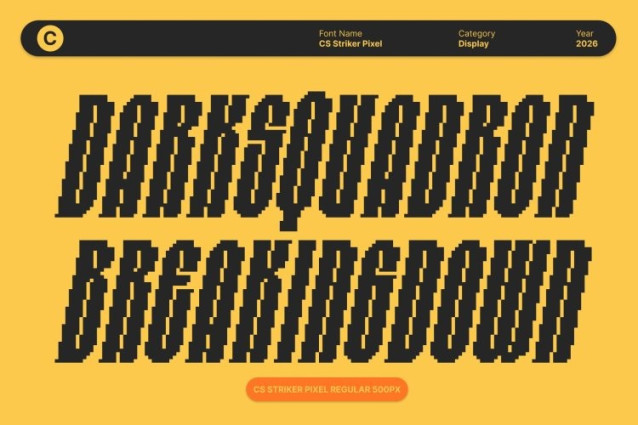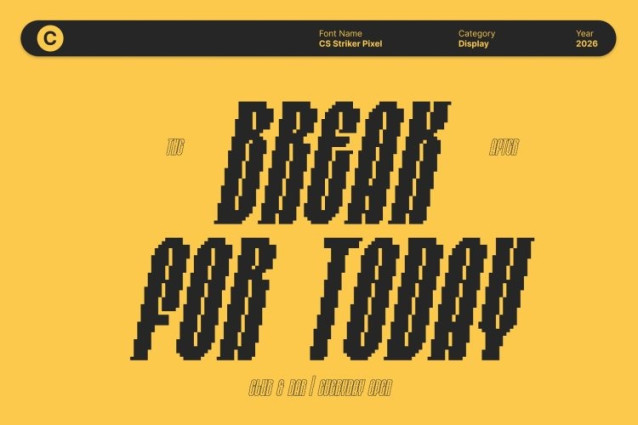
CS Striker Pixel Font
CS Striker Pixel Font This is a condensed sans serif font engineered with bold structure and digital precision. Its tall, compact proportions and sharp geometric construction deliver a strong industrial aesthetic, while subtle pixel-inspired detailing adds a crisp, modern edge. The result is a typeface that feels technical, structured, and built for impact.
Strong, Masculine Form with Digital Attitude
Designed with robust confidence, this font communicates authority and professionalism. The condensed width allows maximum presence in limited space, making headlines feel powerful without overwhelming the layout. Pixel nuances enhance its mechanical rhythm, reinforcing its futuristic and industrial character.
High-Impact for Posters, Branding, and Headlines
This font excels in bold headlines, striking posters, esports graphics, tech branding, and impactful promotional materials. Its condensed build ensures strong vertical emphasis, while the pixel influence gives it a distinctive digital personality that stands out across print and screen.
Versatile for Modern and Technical Design
Blending condensed efficiency with bold pixel precision, this font adapts seamlessly to corporate identities, editorial layouts, packaging, and digital interfaces. Whether you’re crafting a cutting-edge brand or an industrial-inspired campaign, delivers clarity, strength, and a visually commanding presence.